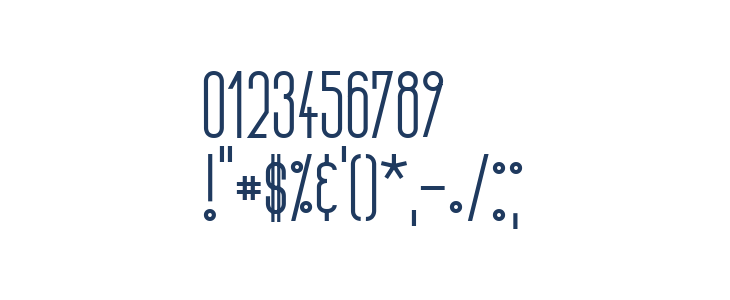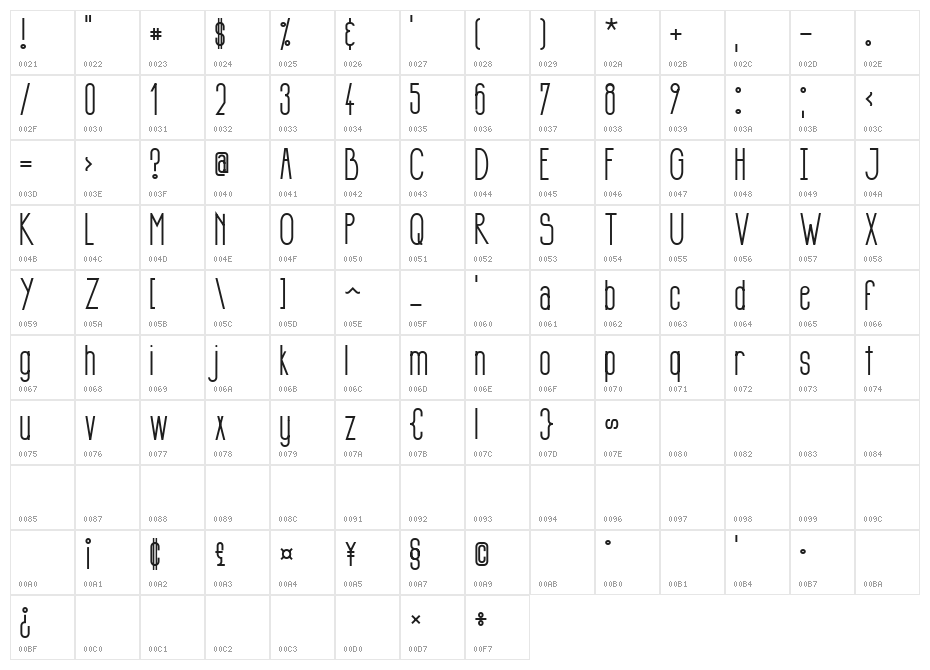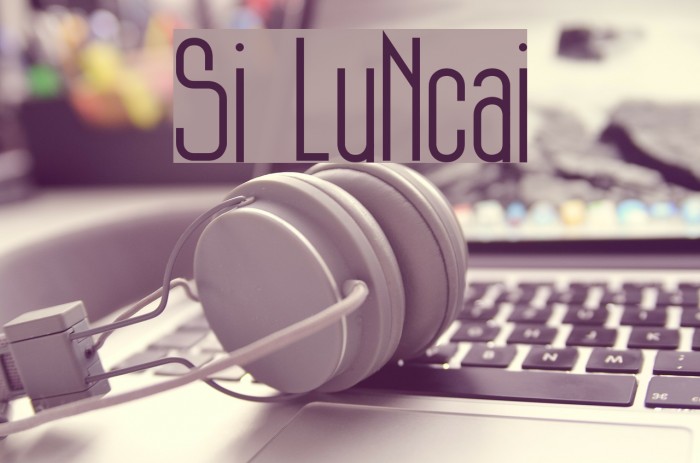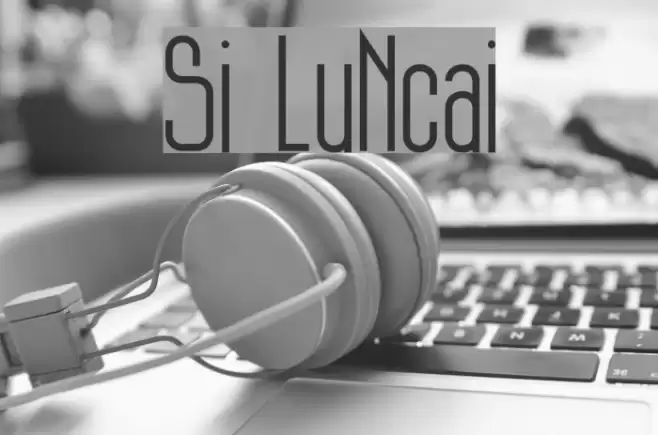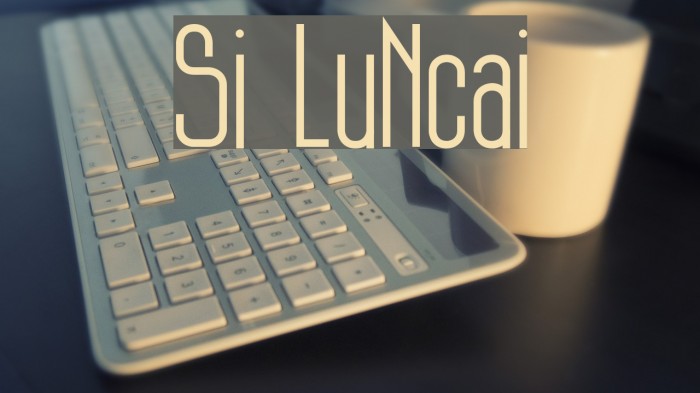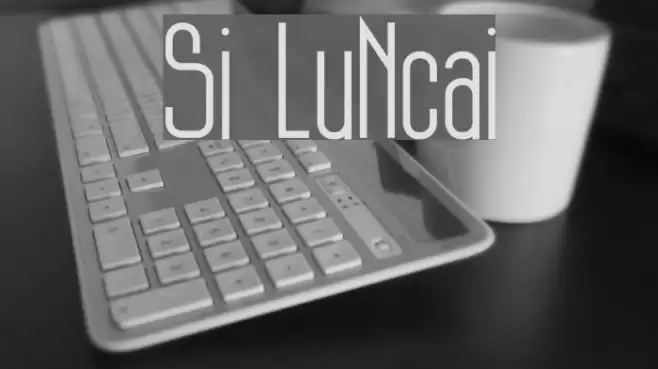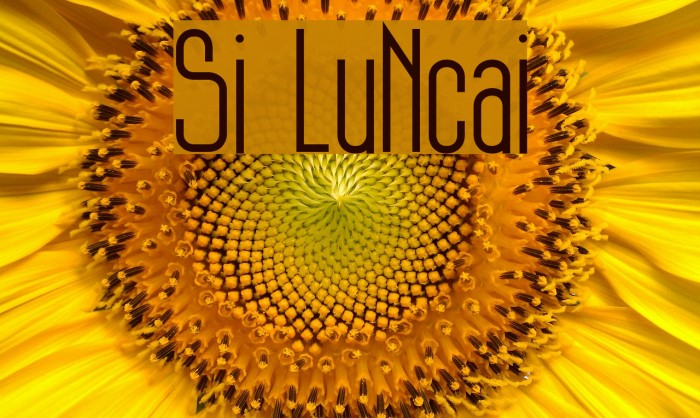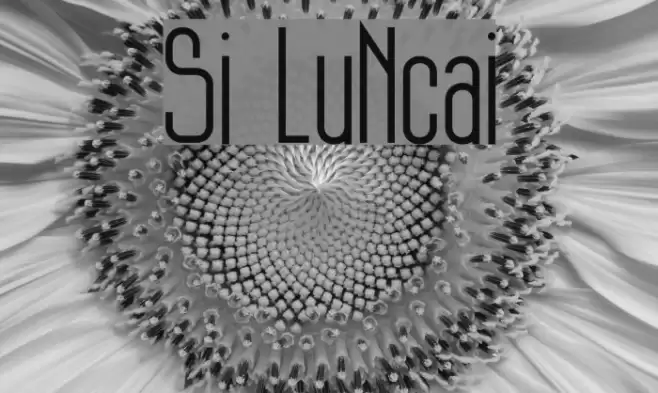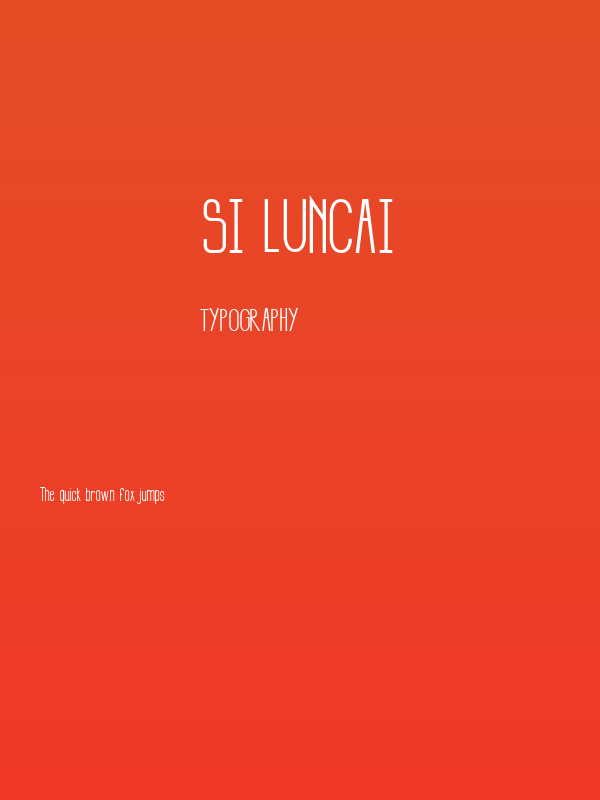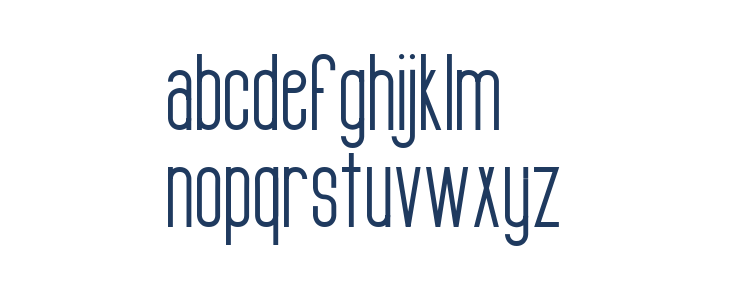
Si LuNcai Font
Si LuNcai Description
This font features a tall and narrow design, characterized by its elongated letterforms and clean lines. The uppercase letters are particularly striking, with a consistent height and minimalistic style that gives a modern and sleek appearance. The lowercase letters maintain the same narrow structure, ensuring uniformity across the typeface. Numbers and special characters are designed to match the overall aesthetic, providing a cohesive look. The font's simplicity and elegance make it versatile for various design applications.